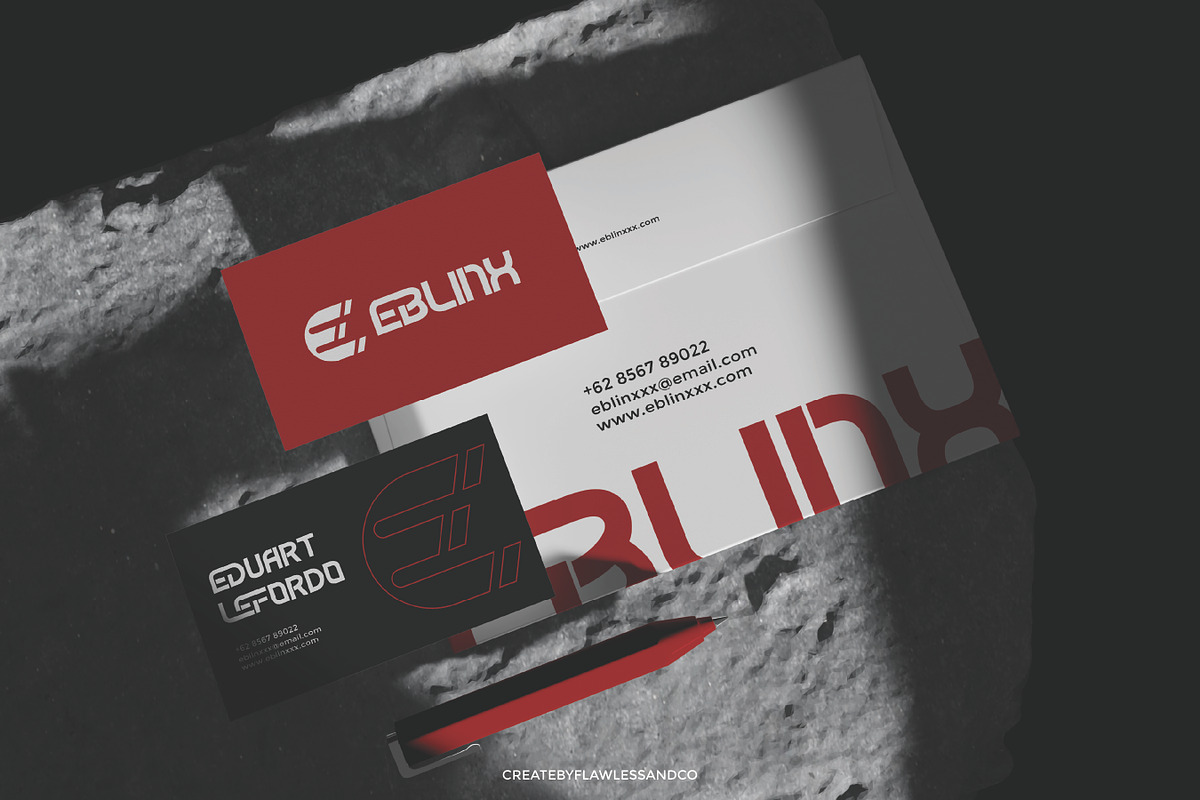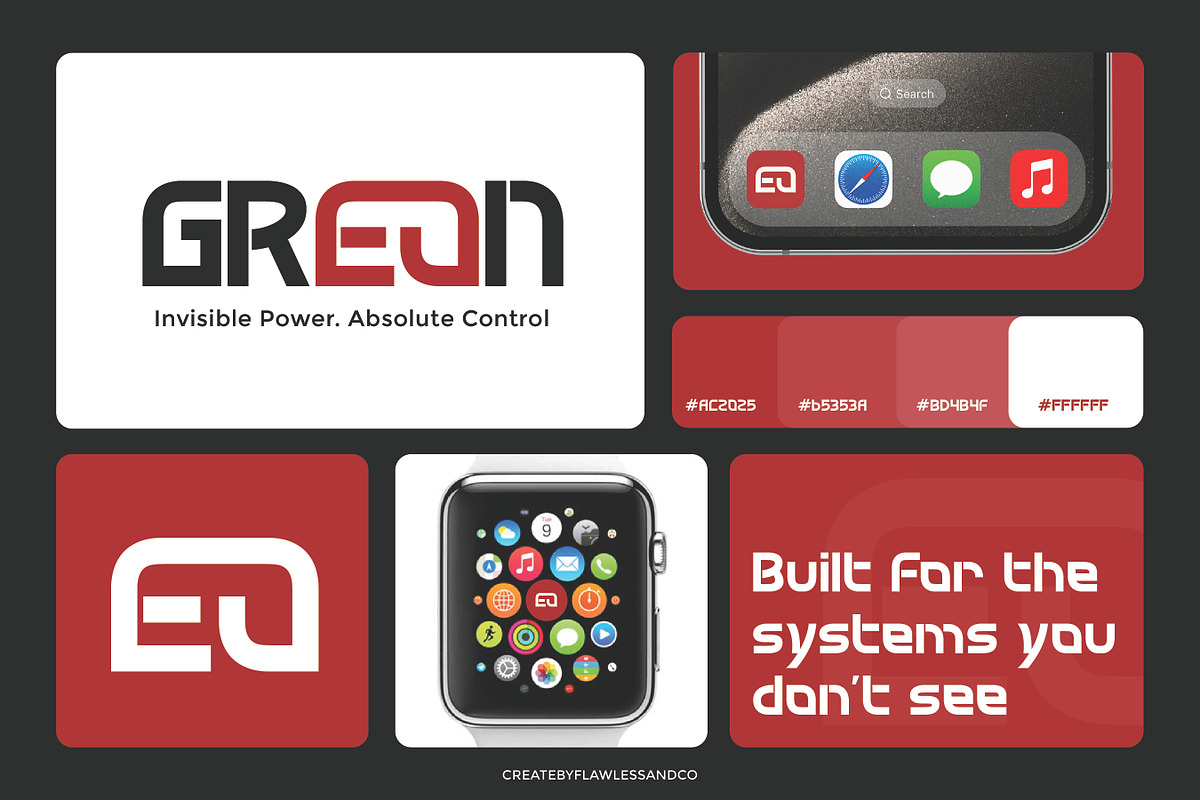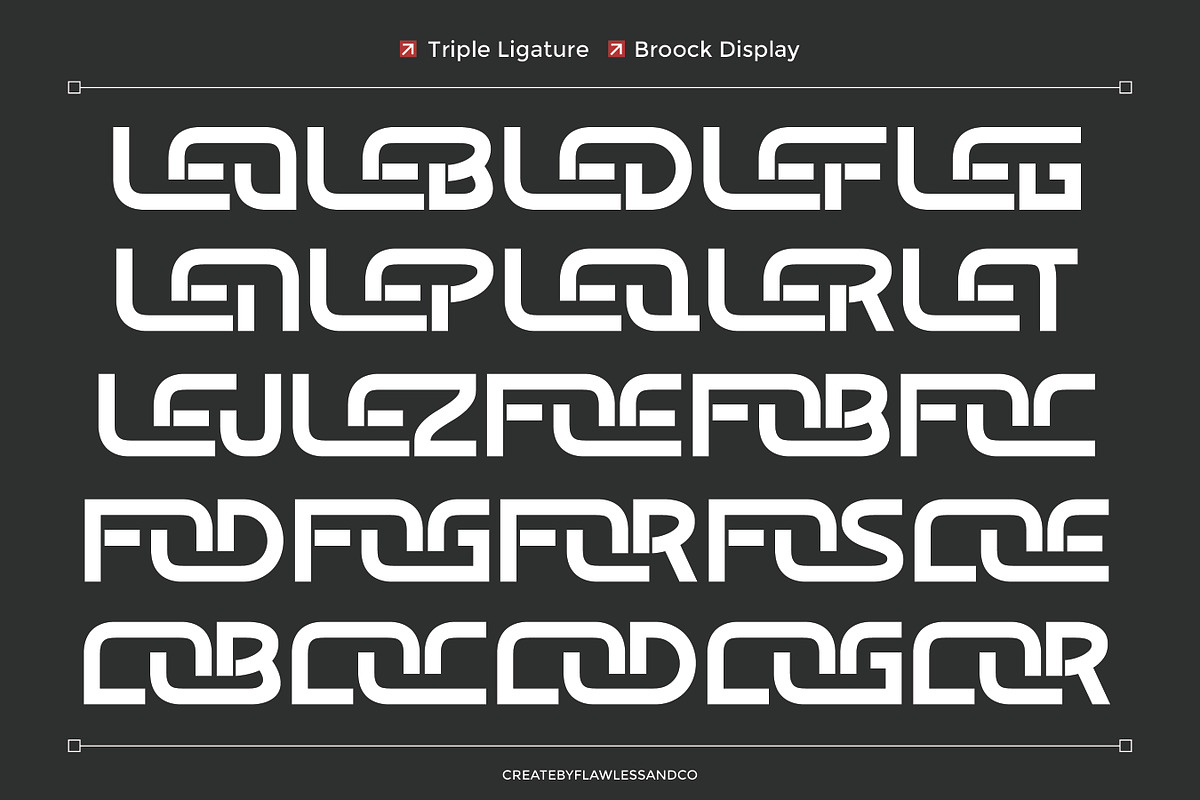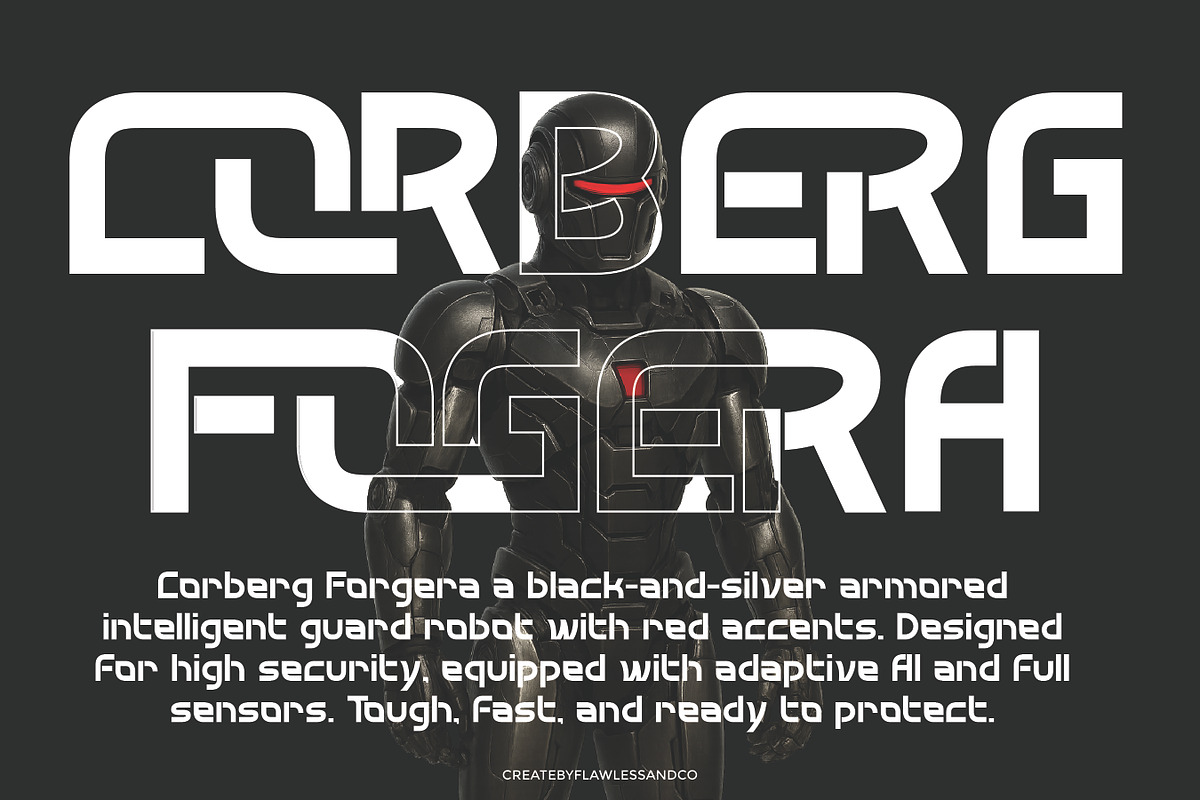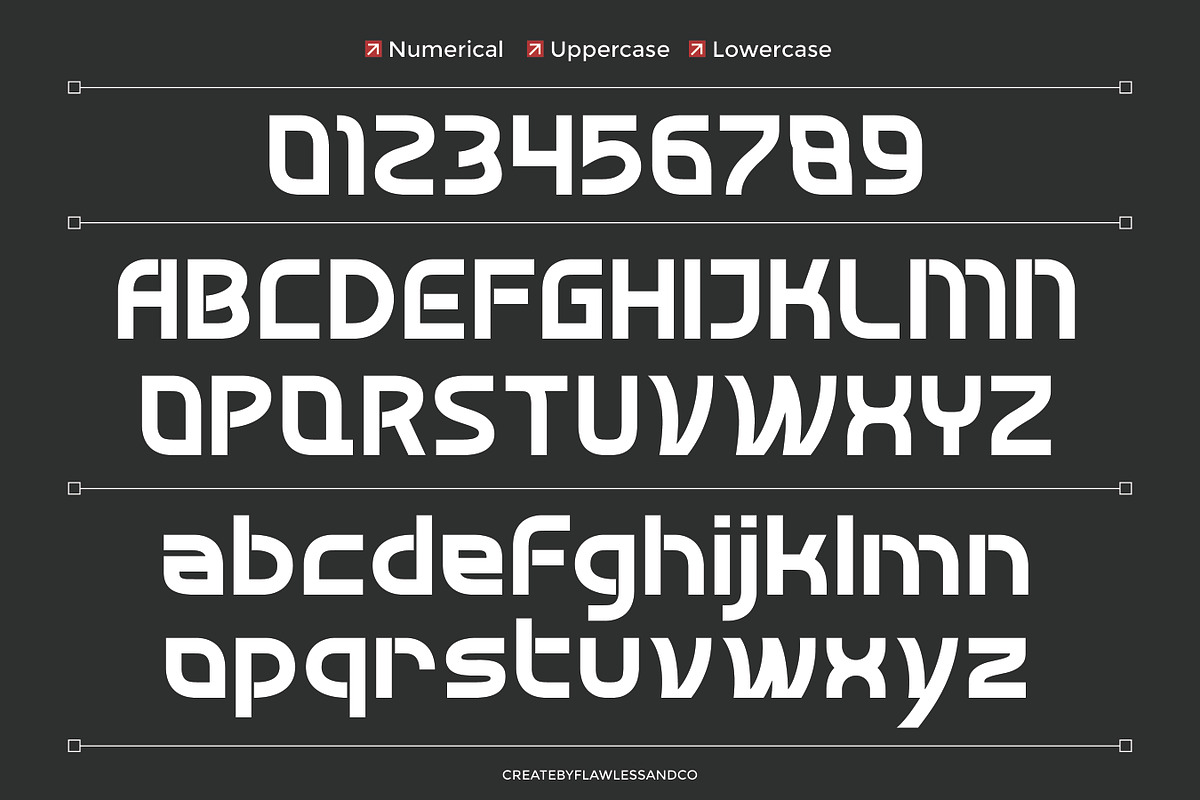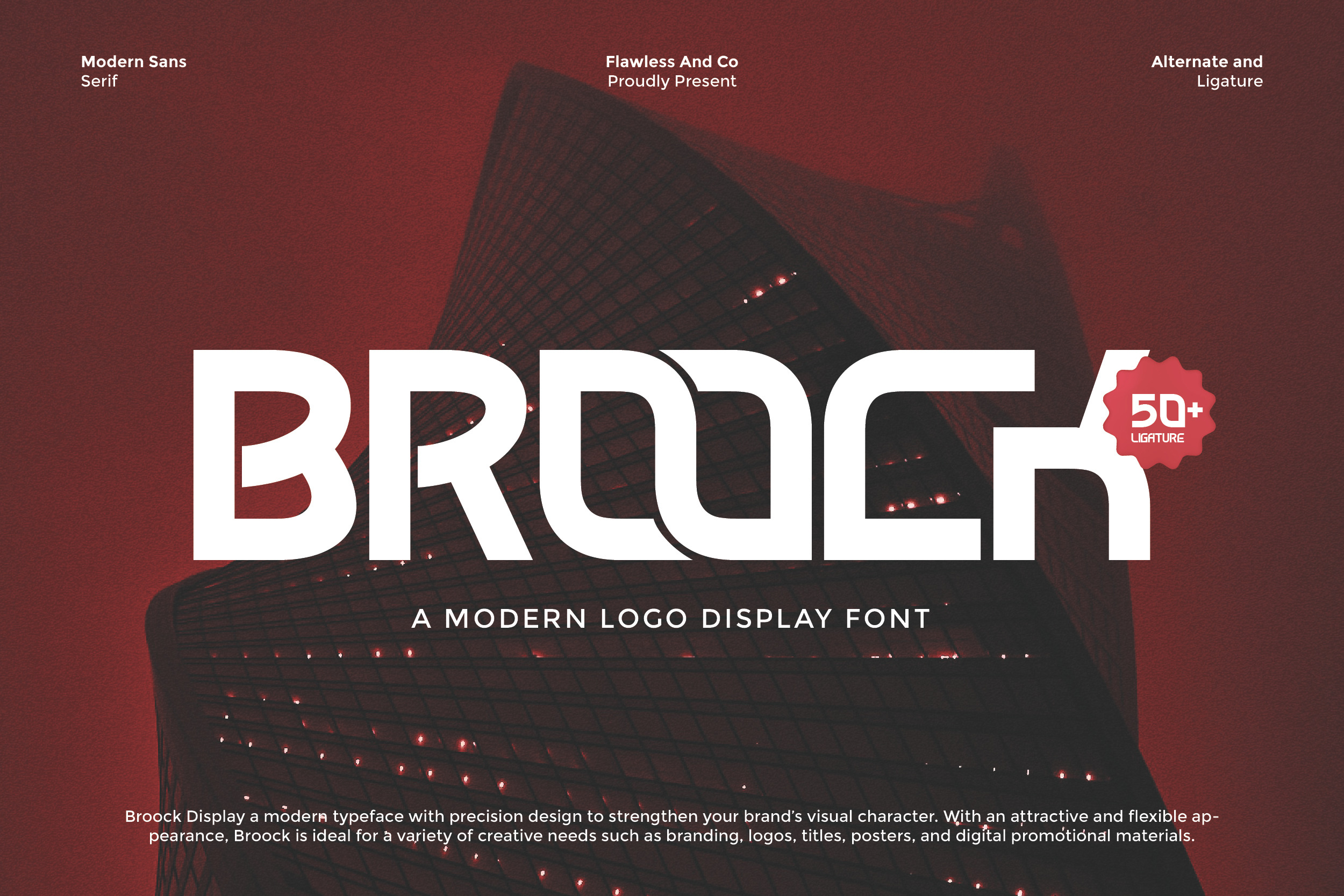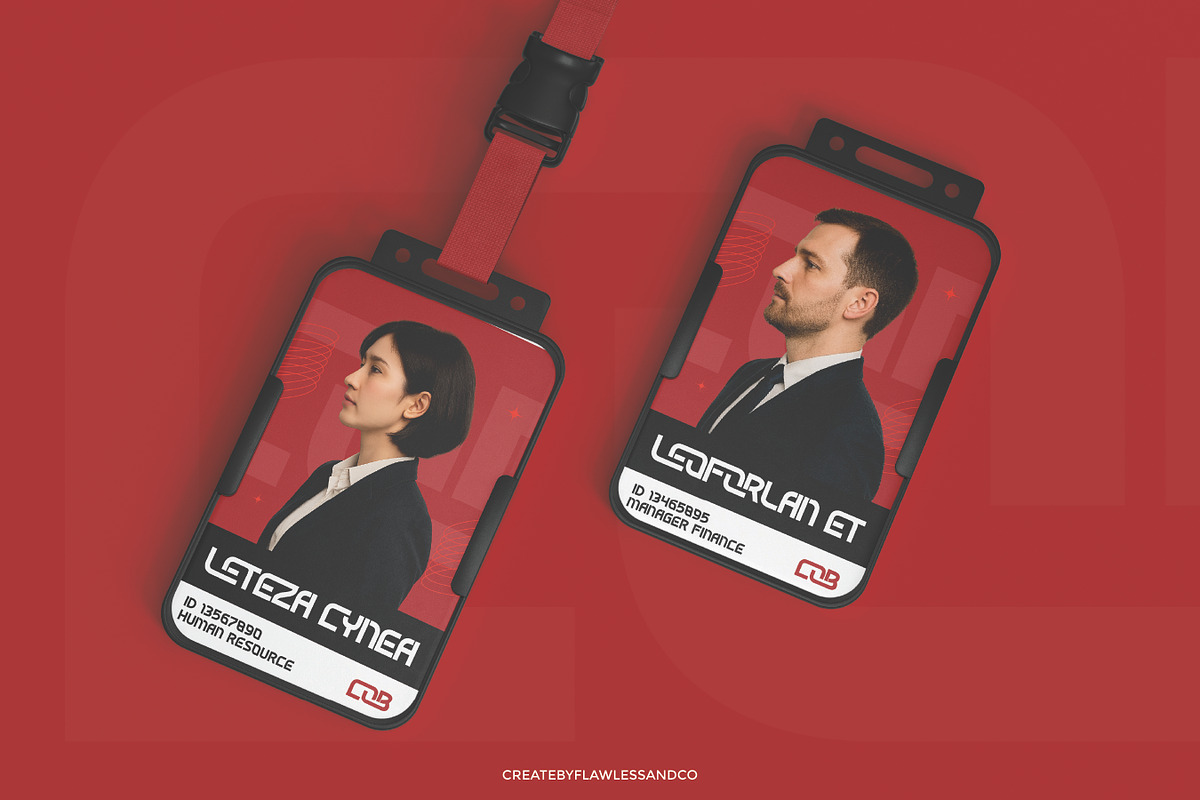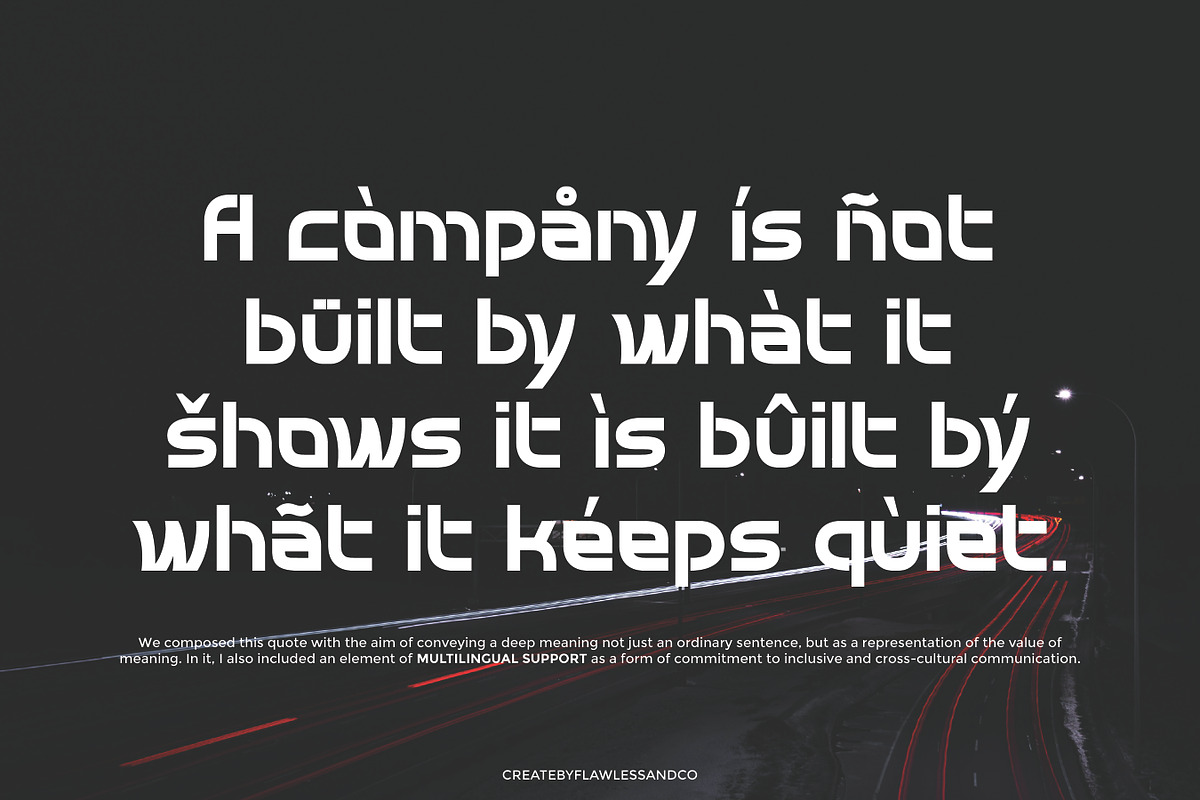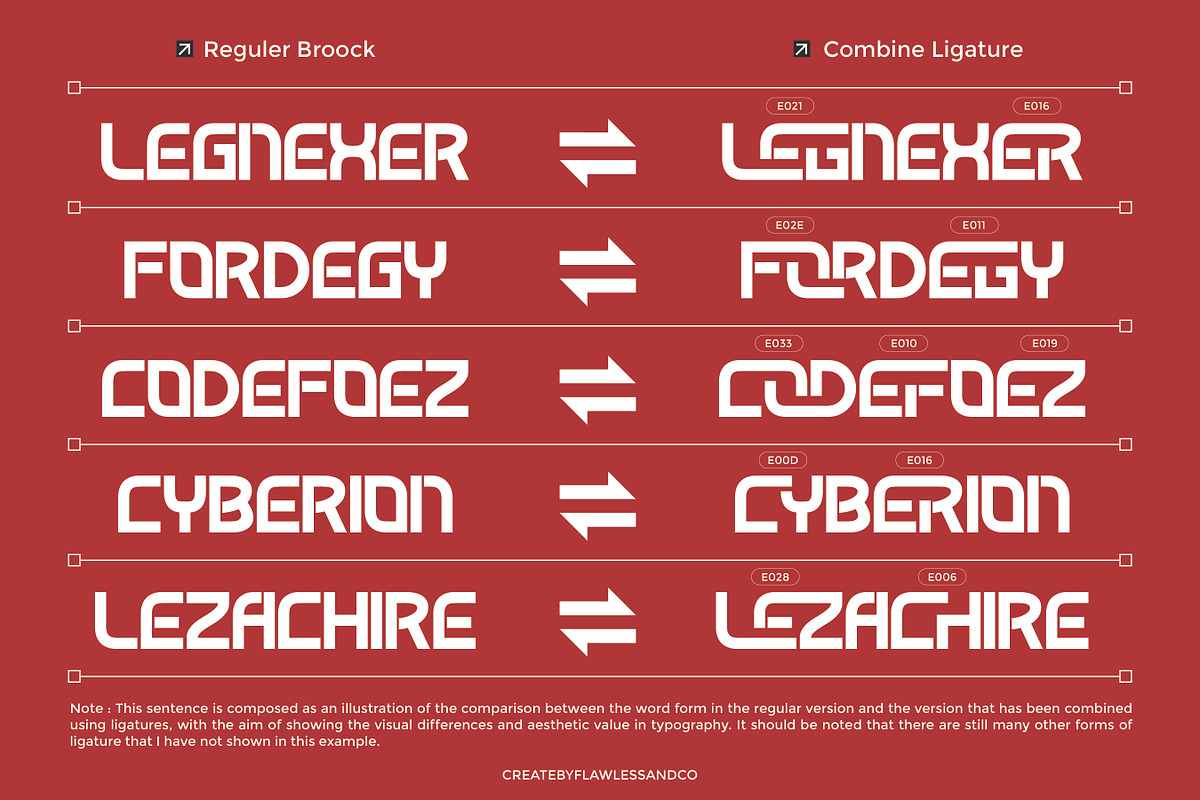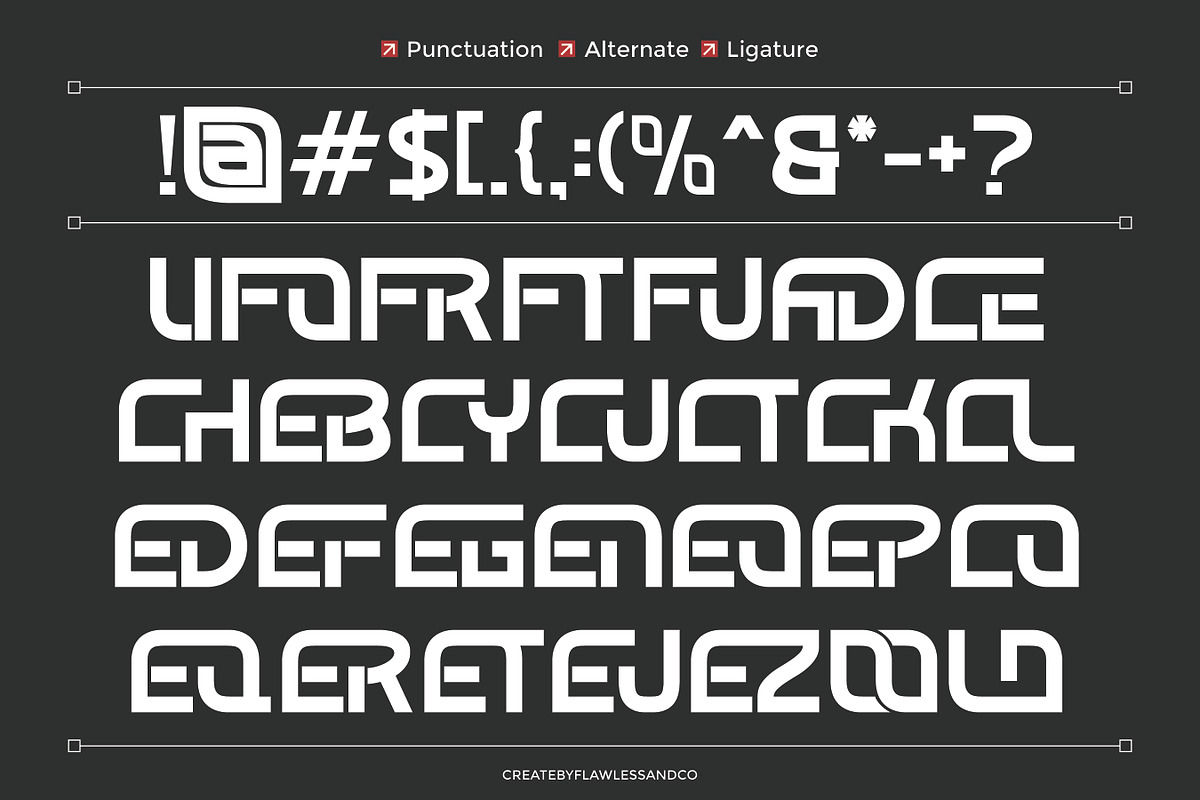
Broock - Modern Display Font
Broock - Is a Modern Display Font
BROOCK is a modern logo display font designed with precision and bold character to elevate your brand identity. Its clean structure and futuristic form make it a standout choice for creative professionals. Packed with 50+ ligatures and alternates, BROOCK brings flexibility and originality to every project. Whether for logos, branding, posters, or digital visuals, BROOCK is built to make a statement with impact and clarity.
Who Should Use BROOCK?
BROOCK is ideal for designers, branding studios, and creatives who want to build strong, modern visual identities. If you're looking to create bold logos, high-impact headlines, or stylish brand marks, BROOCK is the perfect fit.
A Must-Have Font for Branding Creators and Designers
BROOCK is more than just a font—it’s a powerful tool for designers who value strength, style, and clarity. With its bold letterforms and structured elegance, BROOCK is made to command attention while maintaining a clean, professional look. Whether you're crafting a modern brand, designing impactful logos, or building strong visual identities, BROOCK offers the perfect balance of assertiveness and sophistication. It’s the font that helps your creative vision stand tall and unforgettable.
Why Choose BROOCK for Brand Projects?
BROOCK brings a perfect balance of boldness and minimalism, making it ideal for modern brand identities. Its sharp, clean lines create strong visual presence, while the refined geometry ensures legibility and style. Whether you're designing a standout logo, packaging, or headline, BROOCK helps your brand speak with confidence and clarity.
Suitable For:
- Logo design and branding projects
- Product packaging and label design
- Fashion and lifestyle branding
- Bold headlines and advertising
- Website headers and social media graphics
- Modern editorial and print materials